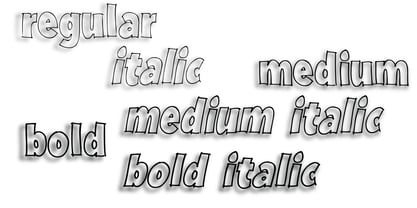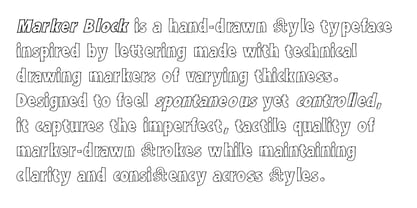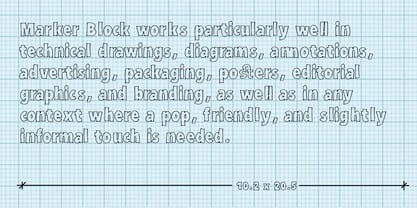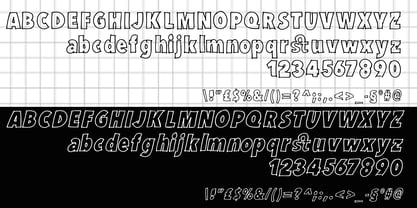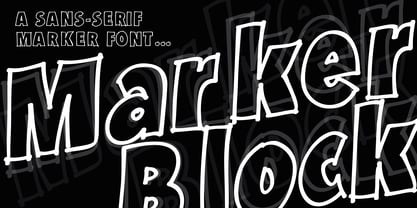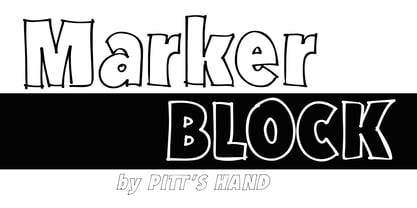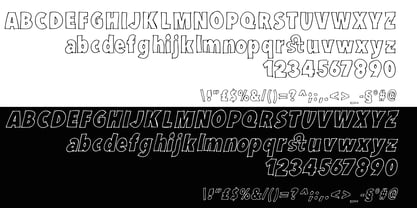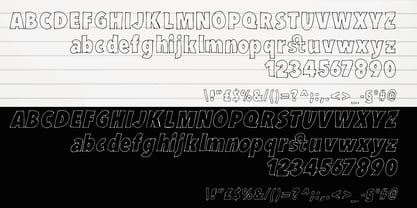
Marker Block
von Pitt's Hand
Die Schriftfamilie Marker Block wurde von Pietro Rotelli entworfen und von Pitt's Hand veröffentlicht. Marker Block enthält 6 Stile und Familienpaketoptionen. Mehr über diese Familie
Marker Block is a hand-drawn style typeface inspired by lettering made with technical drawing markers of varying thickness. Designed to feel spontaneous yet controlled, it captures the imperfect, tactile quality of marker-drawn strokes while maintaining clarity and consistency across styles. The font recreates the natural pressure changes and organic edges typical of technical markers, resulting in letterforms that feel authentic, expressive, and alive. This balance between precision and informality makes Marker Block especially suitable for projects that sit between structure and play. The family includes Regular, Medium, and Bold, each paired with its Italic counterpart, allowing designers to shift tone from neutral to expressive while keeping a cohesive hand-drawn identity. Italic styles enhance movement and emphasis, while heavier weights deliver stronger visual impact without losing the casual, marker-drawn feel. Marker Block works particularly well in technical drawings, diagrams, annotations, advertising, packaging, posters, editorial graphics, and branding, as well as in any context where a pop, friendly, and slightly informal touch is needed. It brings warmth and personality to layouts while remaining legible and versatile. Designed to bridge technical clarity and handmade character, Marker Block offers designers a distinctive voice that feels both practical and playful. Alphabets: Cyrillic • Japanese • Greek • Latin • Thai 1146 glyphs
Designer: Pietro Rotelli
Foundry: Pitt's Hand